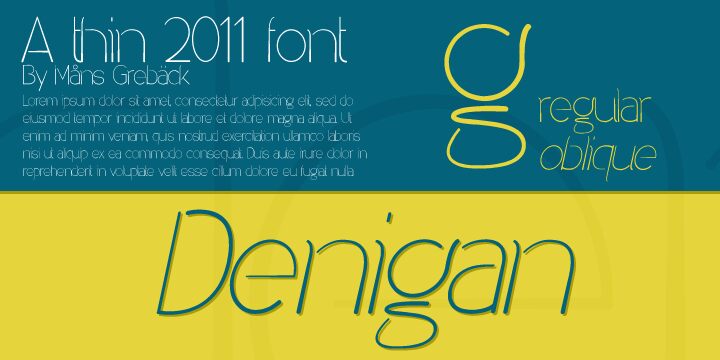
Denigan Oblique by Måns Grebäck is a free light oblique sans serif with unusually tall, lean proportions and a fashion-editorial air. Broad curves meet sharp diagonals in a clean, wiry silhouette.
Magazine covers can use its elongated forms to connect typography with portrait photography or delicate linear illustration. The same fine drawing suits fragrance packaging, boutique branding, and event posters, where the letters can echo slender borders, fashion sketches, or architectural linework.